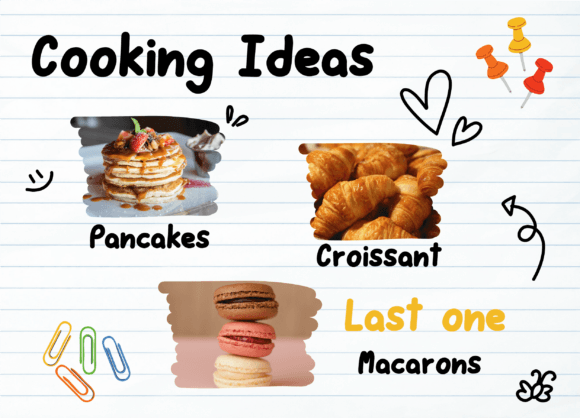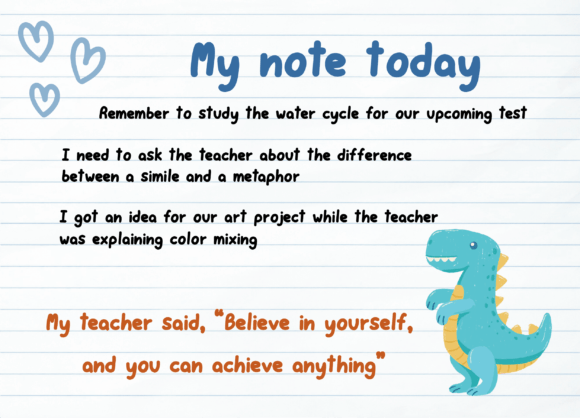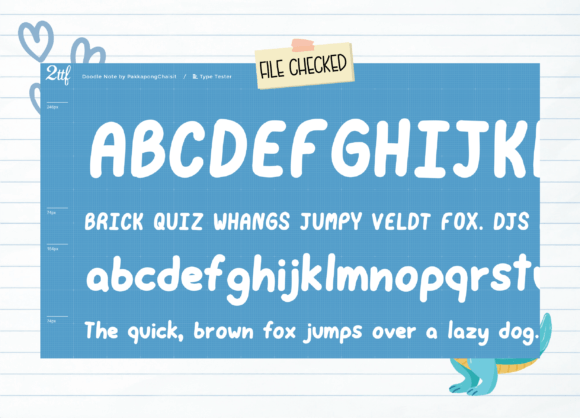
Introduction to Doodle Note Font
A cute bold doodle-style font in a pocket note theme blends the adorable charm of doodles with the strong presence of bold letters.
Each character appears as if hand-drawn with cute and whimsical details, creating a playful and lively aesthetic The font captures the essence of jotting down quick notes or sketches in a pocket-sized notebook, reminiscent of creative ideas and memorable moments on the go.
Key Features of Doodle Note Font